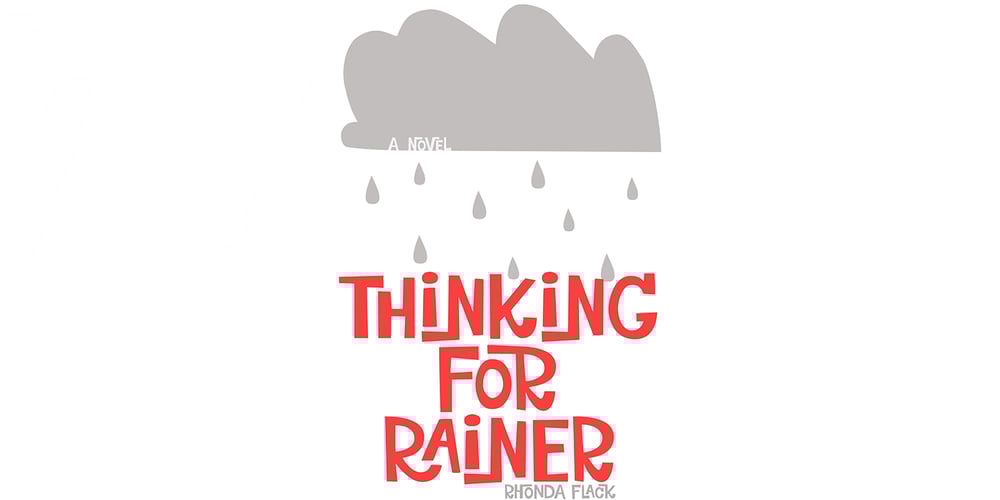
Rowboat
Rowboat font
Rowboat Font Family was designed by Ken Russell, Amy Dietrich and published by Atlantic Fonts. Rowboat contains 2 styles and family package options. Rowboat is delightful and dependable. Turn on discretionary ligatures and you will find a salty set of interlocking and double letter combinations. Access interlocking ligatures using all caps. Rowboat Pictures contains 26 original Amy Dietrich seaside illustrations from charming ocean animals to nifty nautical gear…. Go ahead and make a splash! Posters feature images from Atlantic Fonts picture fonts including Eeeek Images, Trailmap Pictures, and of course Rowboat Pictures!